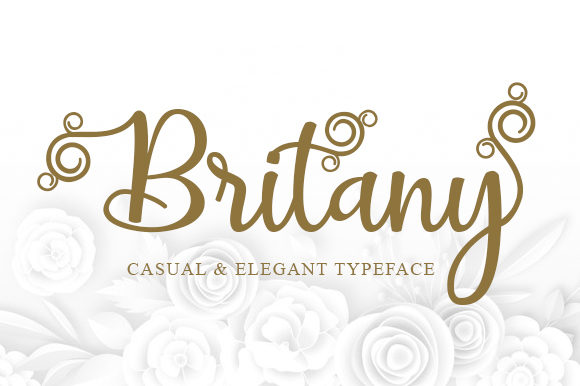
Falling in Love with Britany Script Font: A Designer’s Dream
I still remember the project that led me to discover the stunning Britany Script Font. I was working on a wedding invitation design, and my client was adamant about finding a font that exuded romance and elegance. As I scrolled through my font library, I stumbled upon Britany, and it was love at first sight! 💕
Britany is an incredibly fluid and organic script with iconic swashes that instantly captured the essence of what my client was looking for. Its romantic vibe was undeniable, and I knew I had found the perfect fit for the project.
An Honest Review of Britany Script Font
- ✨ Fluid and organic feel: Britany’s script flows effortlessly, making it perfect for designs that require a touch of elegance and sophistication.
- ✅ Iconic swashes: The font’s swashes add a level of refinement and luxury to any design, making it ideal for high-end branding and wedding projects.
- 💫 Romantic vibe: Britany’s script has a undeniable romantic feel, making it perfect for wedding invitations, Valentine’s Day designs, and other projects that require a touch of whimsy.
While Britany Script Font is an exceptional font, there are a few quirks to be aware of:
- ⚠️ Legibility at small sizes: Like many script fonts, Britany can become difficult to read at small sizes. It’s best used at larger sizes (18pt or higher) to ensure optimal legibility.
- 🤔 Swash placement: Some users may find that the swashes don’t always align perfectly with the rest of the text. This can be adjusted using OpenType features or glyphs.
The Story Behind Britany Script Font
Britany Script Font was designed by a team of typographers who sought to create a font that captured the essence of romance and elegance. Inspired by classic calligraphy and handwritten scripts, Britany was crafted to be both beautiful and functional.
Q: What is the best use for Britany Script Font?
A: Britany Script Font is ideal for designs that require a touch of elegance and sophistication, such as wedding invitations, luxury branding, and high-end packaging.
Q: Is Britany Script Font suitable for body text?
A: While Britany Script Font is beautiful, it’s best used as a display font or for short blocks of text. Its legibility at small sizes may be limited.